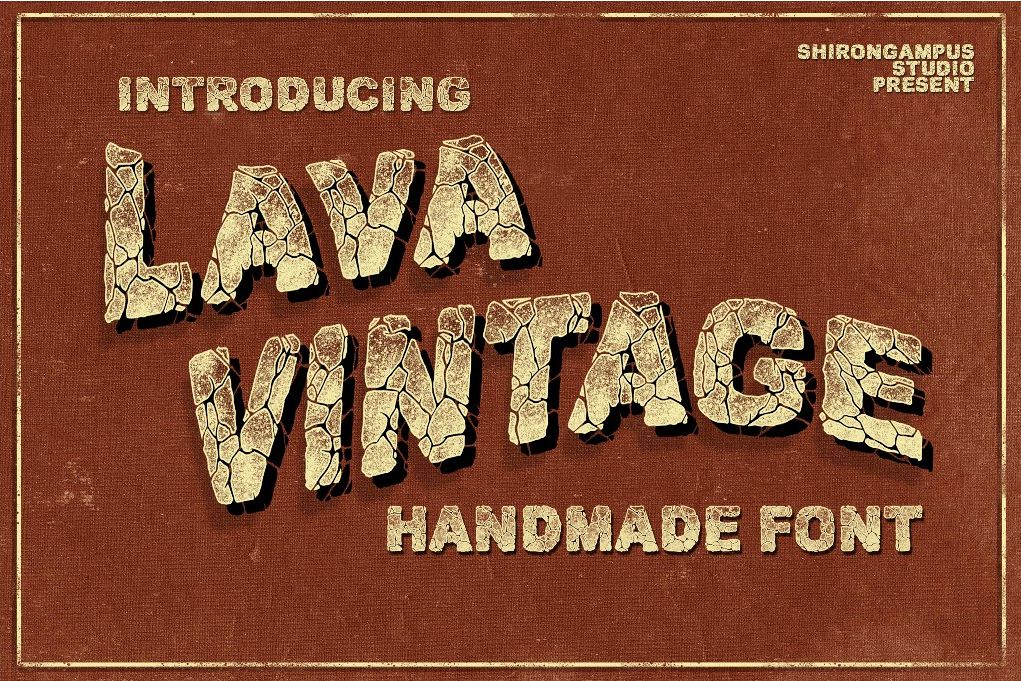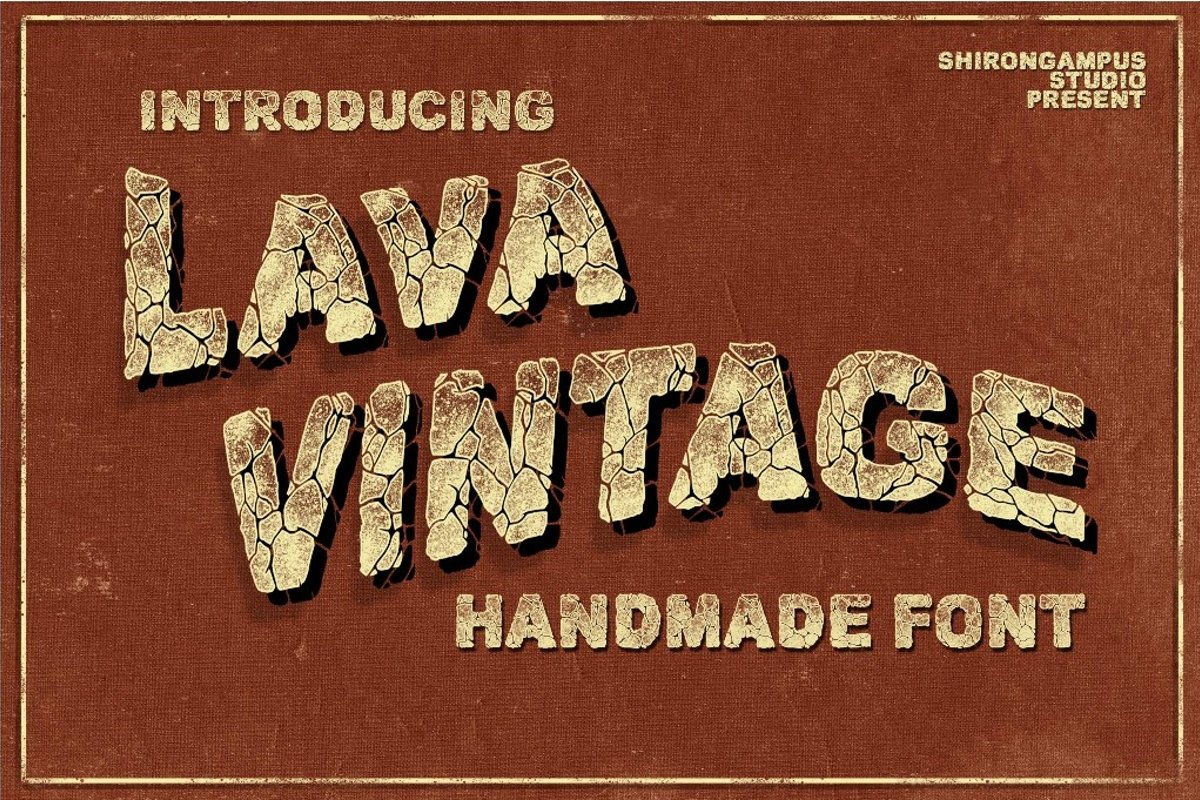
Lava Vintage Handmade
VINTAGE LAVA + Bonus Text Effect
Lava Vintage Font is awesome bold font with handmade lava textures.
This font is awesome for your works, suitable for branding, logo, poster, t-shirt and book cover.